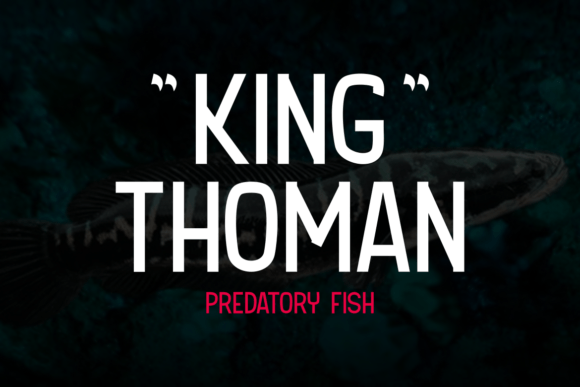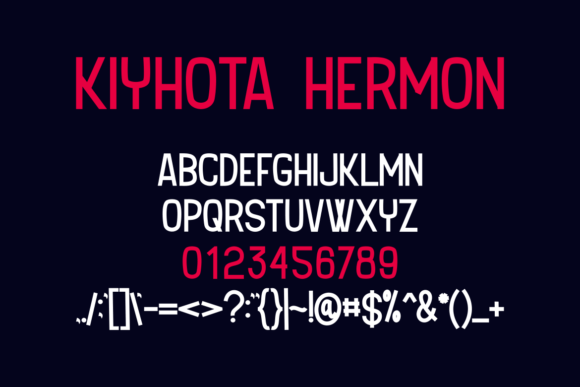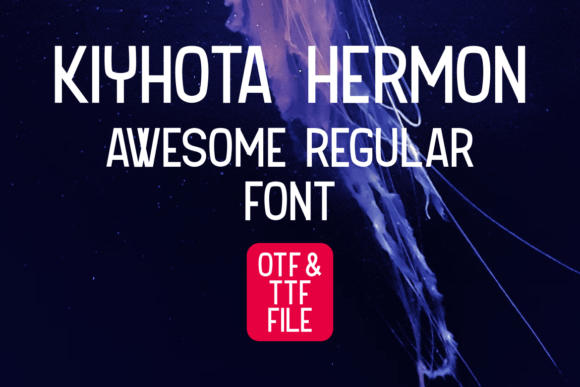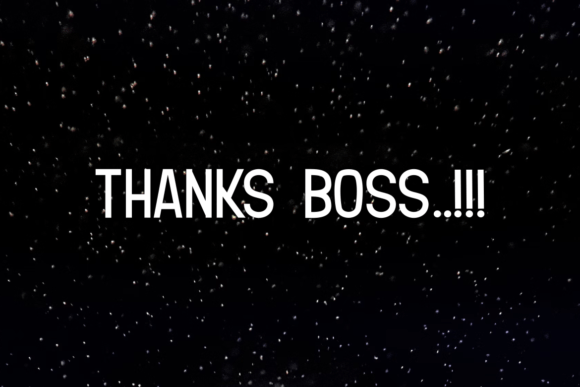
Introduction to Kiyhota Hermon Font
**Kiyhota Hermon Font** – Modern Font is a bold and authentic display font.
The font is suitable for any branding project like logo, t-shirt printing, esports, and many more outstanding in a wide range of contexts.
Key Features of Kiyhota Hermon Font